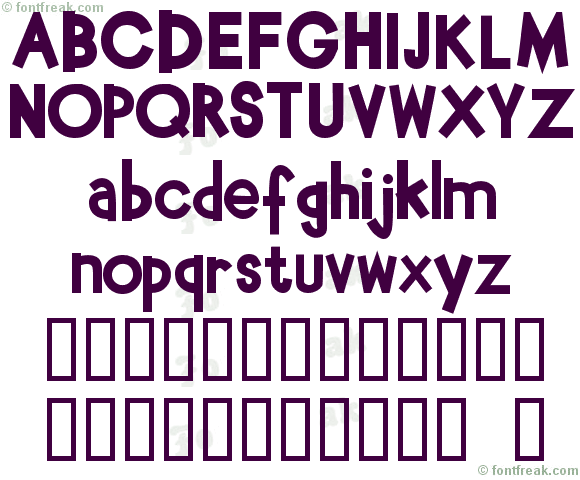
Babe Bamboo
About Babe Bamboo
Babe Bamboo, designed by Jenny Barck in 1997, is a unique display font that captures attention with its playful and organic aesthetic. This typeface falls within the decorative category, characterized by its bold, rounded letterforms that evoke a sense of warmth and friendliness. The consistent stroke weight and minimal contrast between thick and thin lines create a cohesive appearance, while the slightly uneven spacing gives it a hand-crafted feel. Decorative elements, such as the whimsical curves and rounded edges, enhance its casual charm, making it a delightful choice for various design applications.
The Babe Bamboo font is particularly well-suited for a range of creative projects. It shines in wedding invitations, where its friendly demeanor can set a joyful tone for the celebration. Additionally, it is an excellent choice for children's book covers, where its playful nature can engage young readers. Restaurant menus can benefit from its inviting appearance, helping to create a warm and welcoming atmosphere. Moreover, it can be effectively used in branding materials for small businesses, especially those in the food, art, or lifestyle sectors, where a personable touch is essential. Content creators looking to add a unique flair to their social media graphics will also find this font appealing.
Targeting graphic designers, small business owners, and content creators, Babe Bamboo offers versatility and charm. Its freeware license allows for easy access, enabling users to incorporate it into their projects without cost. The Babe Bamboo font free download makes it accessible for anyone looking to elevate their design work. What sets this font apart is its ability to blend a casual, approachable style with versatility, making it a go-to option for creating engaging and memorable designs.